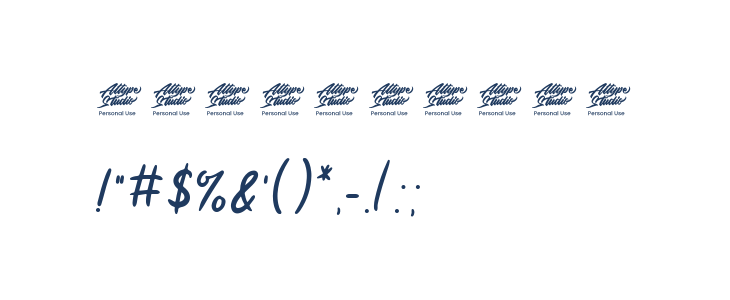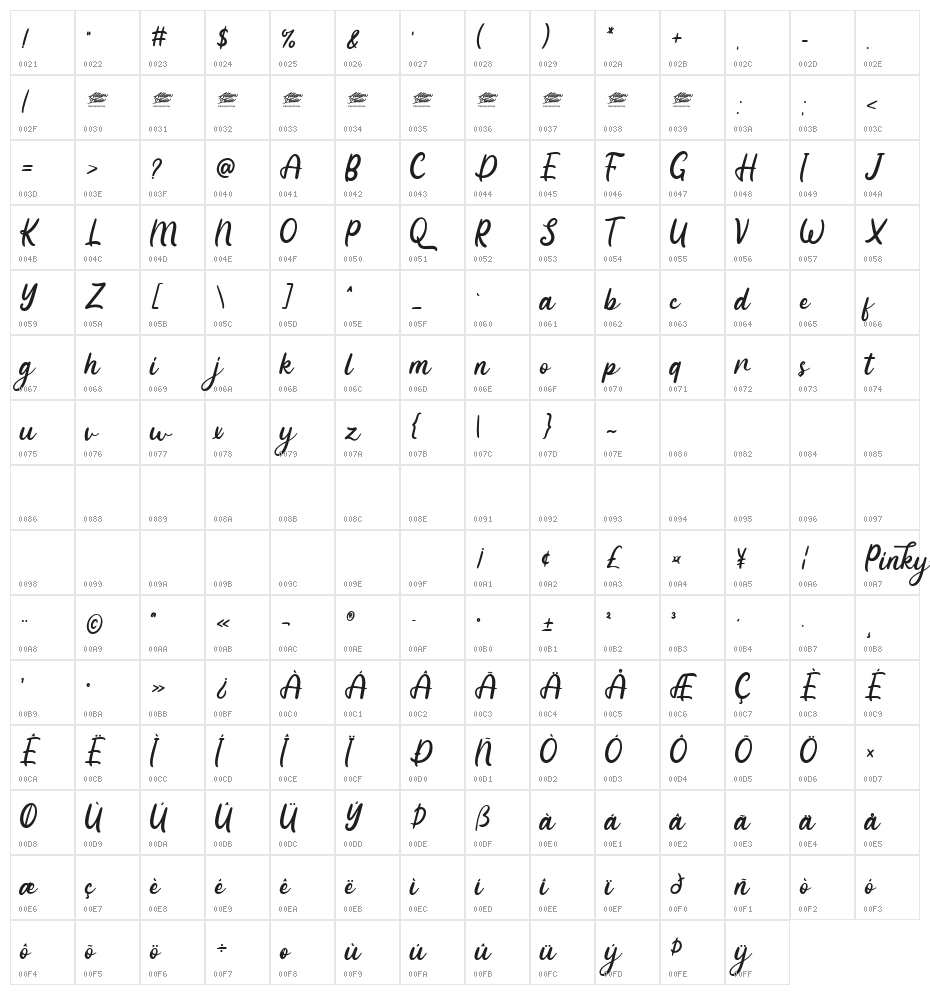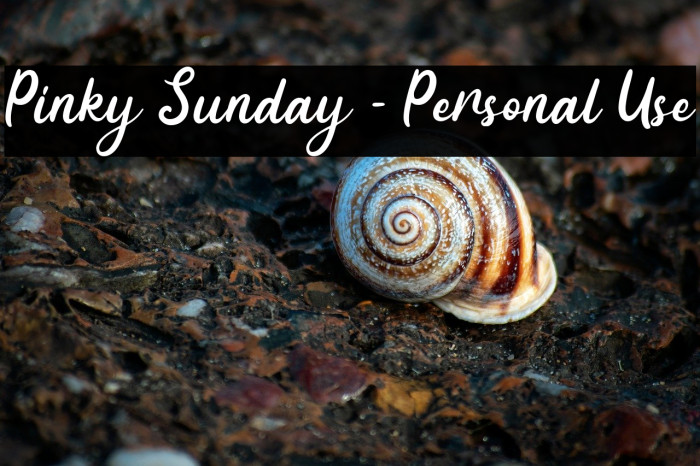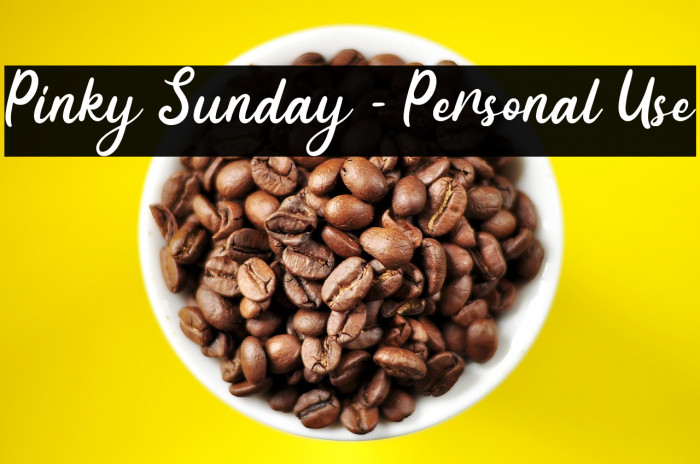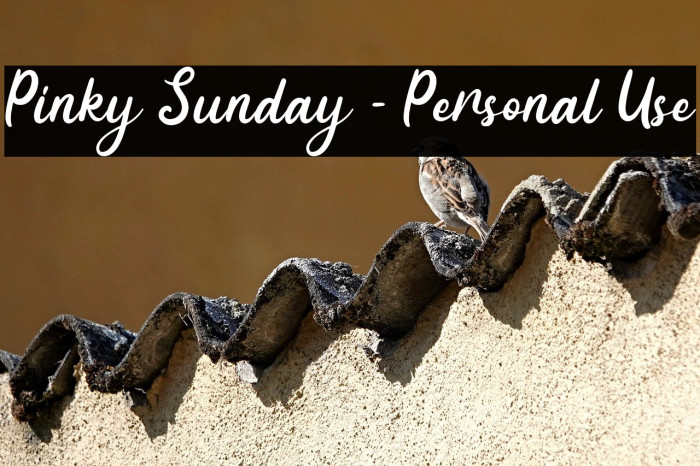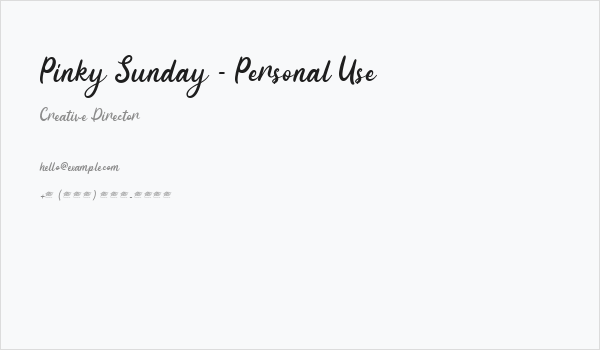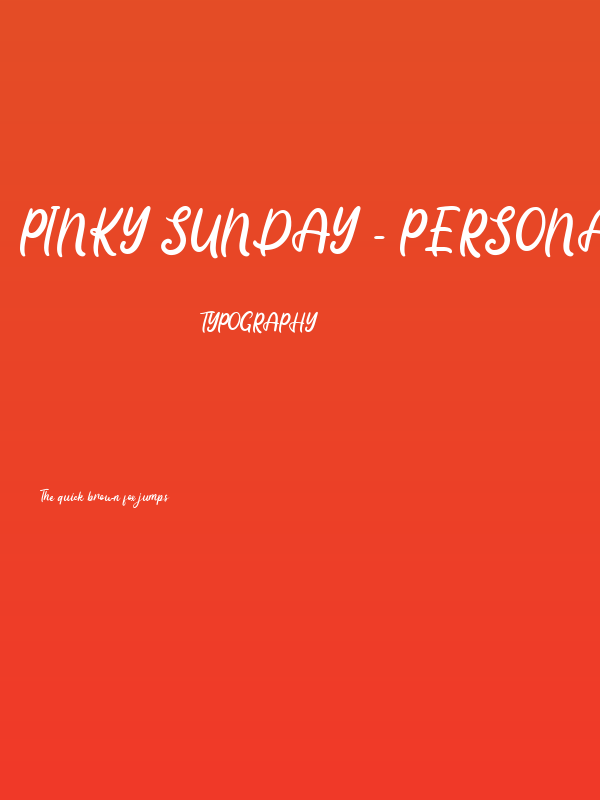
Pinky Sunday - Personal Use Font
Pinky Sunday - Personal Use Description
This font features a lively and flowing script style, characterized by its smooth, cursive letters that convey a sense of elegance and playfulness. The uppercase letters are bold and slightly slanted, with a consistent stroke width that adds to the font's readability. The lowercase letters maintain a harmonious flow, with rounded edges and a slight tilt that enhances the handwritten feel. The numerals and special characters are designed to match the overall aesthetic, ensuring a cohesive look across all text elements. This font is ideal for projects that require a personal touch, such as invitations, greeting cards, or branding materials.
| Proposed Projects | Ideal for invitations, greeting cards, branding materials, and personal projects. |